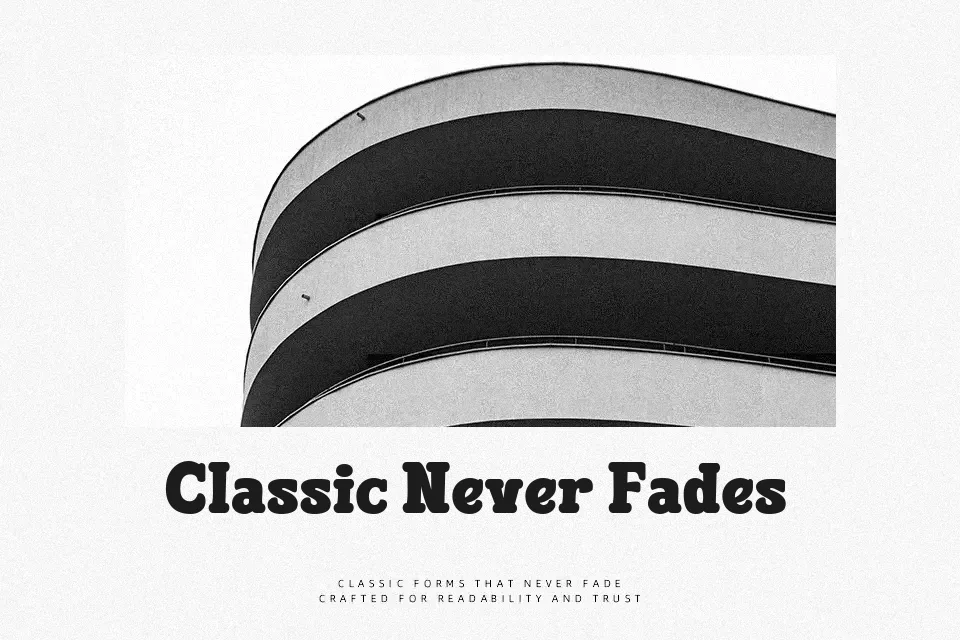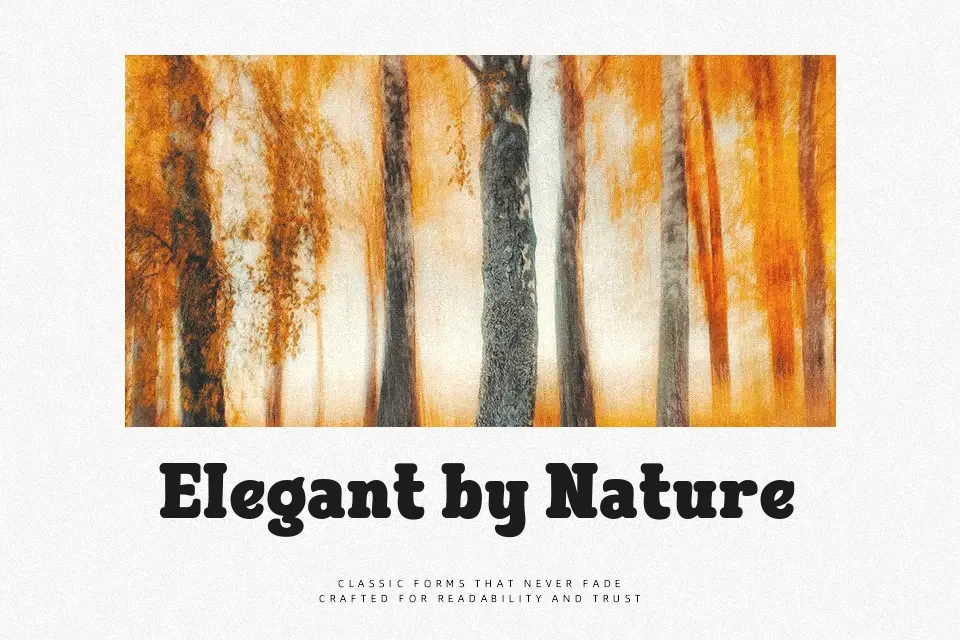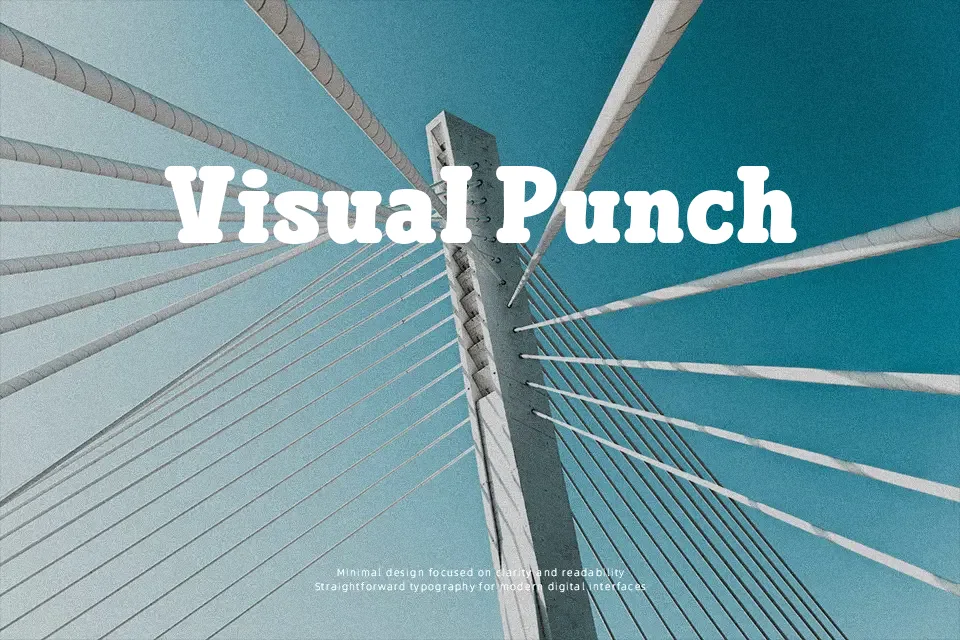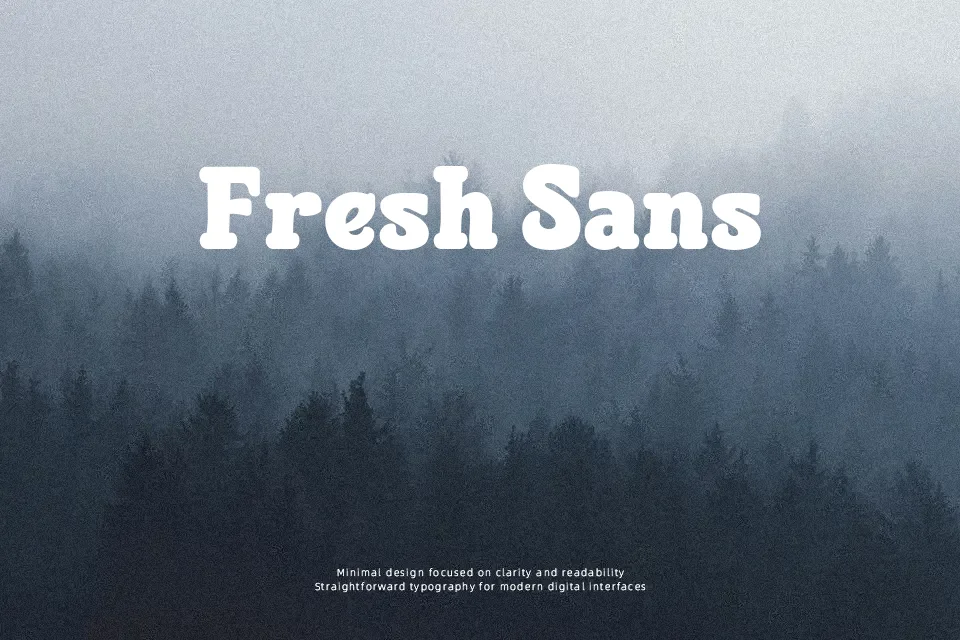
Bleqcki Font
Designed by twinletter
Bleqcki is a captivating retro serif display font that masterfully balances classic architectural strength with elegant vintage curves. Featuring pronounced serifs, moderate contrast strokes, and tight spacing, this typeface commands attention while maintaining a refined sophistication. The structural weight makes it highly effective for prominent branding identities, luxurious packaging, and commanding editorial headlines where a nostalgic yet timeless aesthetic is desired. However, due to its distinctive display characteristics and robust detailing, Bleqcki struggles with lengthy body text or small-scale user interface elements, as readability noticeably declines at smaller sizes. Compared to standard minimalist serifs, it injects far more personality and dramatic flair, ensuring your core message stands out beautifully.
Premium product packaging and labels, striking editorial headlines and magazine covers, vintage-inspired brand identities, prominent poster typography.
Lengthy paragraphs or dense body copy, small digital interfaces and mobile apps, minimalist tech-focused corporate branding.
Perfect for branding, editorial, and headline, with a bold and display style.